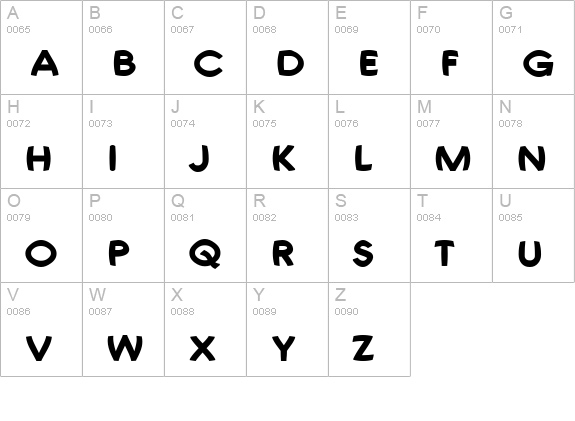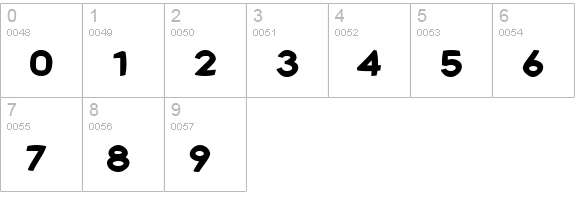
Joshs Font Font Details
Introducing Joshs Font, a delightful and versatile typeface that will add a touch of creativity to your design projects. This unique font strikes the perfect balance between modernity and playfulness, making it suitable for a wide range of applications. With its clean lines and distinctive letterforms, Joshs Font exudes a sense of charm and sophistication that is sure to captivate your audience. Whether you're working on branding, packaging, posters, or social media graphics, this font will elevate your designs to new heights. The best part? Joshs Font is completely free to download at FontsMarket.com. That's right, you can access this fantastic font at no cost, making it a must-have addition to your font collection. Don't miss out on the opportunity to enhance your projects with Joshs Font today!